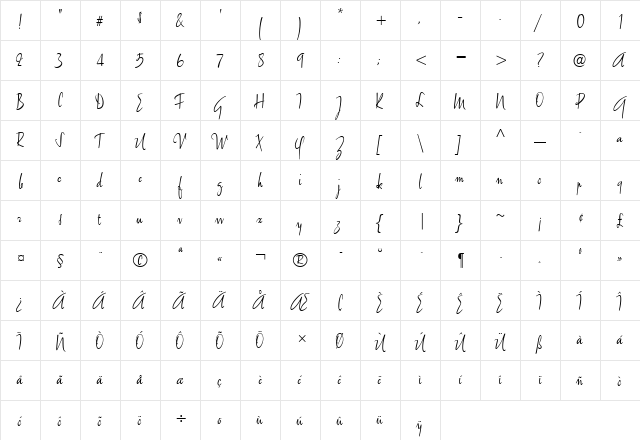
Amethyste Regular
| Foundry | Copr. FontHaus Inc |
Design Context for Amethyste Typeface
Amethyste takes a measured approach to typography — its balanced proportions and neutral character make it a reliable workhorse for both digital and print work.